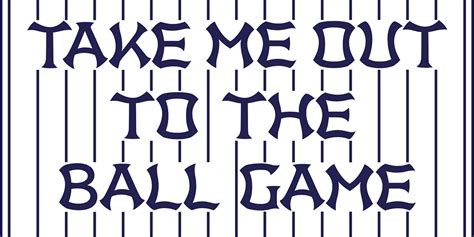
Hey guys, are you ready to build the ultimate baseball dynasty? Well, before you even start drafting players and setting lineups, you gotta get the look right! I’m talking about the fonts, the very essence of your team’s visual identity. Choosing the perfect font can transform your team’s brand, making it look professional, cool, and intimidating all at once. So, how do you find the right fonts? Where do you even begin? Don’t worry, I’ve got you covered. Let’s dive into the world of font downloads and how to get those perfect fonts for your baseball dynasty project. We’re talking logos, jerseys, social media graphics, and everything in between. It’s time to elevate your game and create a visual experience that screams success.
Why Fonts Matter in Your Baseball Dynasty
Alright, let’s get real for a second. Why are fonts so incredibly important for your baseball dynasty? It’s simple, really. Fonts are the unsung heroes of visual communication. They’re the silent messengers that convey your team’s personality, values, and ambitions. Think about it: a sleek, modern font can project professionalism and innovation, while a bold, vintage font might evoke a sense of tradition and history. Imagine trying to build a baseball dynasty with Comic Sans… shudders . The font you choose is a direct reflection of your team. It impacts how fans perceive your team and even how potential players view your organization. A well-chosen font can instill a sense of pride and identity, both internally and externally. When your team looks good, it feels good, and that can translate to a winning attitude on and off the field. Plus, in today’s digital world, a strong visual brand is essential for attracting attention, building a following, and ultimately, achieving your goals. It’s not just about winning games; it’s about crafting a compelling narrative , one that captures the imagination of fans and the respect of rivals. So, let’s make sure we get this right, shall we?
Consider this: when you see a team’s logo or a jersey, what is one of the first things you notice? The font! A well-designed font grabs your attention, reinforces brand recognition, and sets the tone. Think about the iconic fonts of the New York Yankees or the Los Angeles Dodgers. They’re instantly recognizable and intrinsically linked to the teams’ legacies. If you’re building a dynasty, you want that kind of recognition. You want your font to become synonymous with winning. It’s about creating a legacy . It is about creating a visual story that reinforces your team’s identity. The right font is a building block in your dynasty’s foundation. Think about the impact of the font on your team’s merchandise, the scoreboards, the advertising materials, etc. Everything needs to be consistent to build that brand recognition. Remember, you want to get the fans excited and create that winning dynasty feeling. So, let’s find the fonts that will make it happen!
Finding the Right Font Style for Your Team
Okay, so you know where to download fonts, but how do you actually choose the right style ? It’s a critical decision. You want a font that aligns with your team’s personality, and the options are nearly endless. Consider these popular styles.
• Serif Fonts: These are classic fonts with little decorative strokes at the end of each letter. They convey a sense of tradition, sophistication, and stability. Perfect if you’re going for an old-school or established feel. Think about the fonts used by the Boston Red Sox or the St. Louis Cardinals – a nod to the history of the sport.
• Sans-Serif Fonts: These are clean and modern fonts without the decorative strokes. They’re great for a contemporary, minimalist look. Use these to communicate innovation and a forward-thinking approach. The sleekness can reflect speed, agility, and a modern approach to the game.
• Script Fonts: These fonts mimic handwriting and add a touch of elegance or playfulness. They can work well for logos or specific design elements, but can be hard to read for body text. Ideal if you want a touch of personality or to evoke a vintage aesthetic.
• Display Fonts: Designed for headlines and short bursts of text, display fonts come in all shapes and sizes. They’re perfect for creating a bold, eye-catching logo or emphasizing a particular team motto. These are used when you want to make an immediate impact. These are often creative and bold, helping you stand out from the competition. Think about a font that matches your team’s nickname or mascot.
When choosing, consider these elements: Readability is key. The font needs to be legible, especially at different sizes and on different mediums (jerseys, digital displays, etc.). Personality matters. Does the font reflect your team’s character? Is it bold, classic, modern, or playful? Consistency is crucial. Use the same font family across all your branding for a cohesive look. Versatility . Select fonts that work well in multiple contexts, from your website to your merchandise. Accessibility matters. Ensure your font choice is accessible to all viewers, including those with visual impairments.
Tips for Using Fonts in Your Baseball Dynasty
Now, let’s talk about how to make the most of your fonts . It’s not just about downloading them; you also have to use them effectively.
• Create a Brand Style Guide: Document your fonts, colors, and other design elements to ensure consistency. This helps anyone creating materials for your team understand the brand’s visual identity. This prevents any confusion and makes it simple to ensure that any branding is consistent.
• Pair Fonts Wisely: Don’t overload your design with too many fonts. Stick to two or three at most. Pair a headline font with a body font that complements it. It ensures that the design doesn’t become too busy.
• Consider Font Licensing: Always check the font licenses to make sure you can use the fonts for commercial purposes (e.g., merchandise, advertising). Some fonts are free for personal use but require a license for commercial applications.
• Test Your Fonts: Try your fonts out in different contexts (logos, jerseys, website) to ensure they look good everywhere. Try to create mockups of what the jerseys or website will look like to make sure it will translate and look good in reality.
• Focus on Hierarchy : Use different font sizes, weights, and styles to create visual interest and guide the viewer’s eye. Hierarchy is a core design principle that allows you to emphasize the most important information first and keep your viewers engaged.
• Stay Updated: Fonts can go in and out of style. While classic fonts always work, try to keep an eye on current design trends and update your font choices accordingly. This keeps your brand looking fresh and modern.
By following these tips, you’ll be well on your way to creating a visually stunning baseball dynasty that stands out from the crowd.
Customizing Your Fonts for a Unique Look
Want to take things to the next level? Customizing your fonts can add a unique touch to your baseball dynasty’s branding. Many font design tools allow you to modify existing fonts or create your own from scratch. While this might be a more advanced approach, the results can be remarkable. Here are some of the ways you can customize your fonts.
• Font Editing Software: Applications like FontForge or Glyphs allow you to modify the shapes, spacing, and other aspects of existing fonts. You can adjust individual letterforms, add custom ligatures, and create unique variations to match your team’s personality. These tools are often complex, but they provide a high level of customization. Learning to use them can allow you to create fonts that are truly original.
• Commissioning a Custom Font: If you have the budget, consider hiring a professional font designer to create a custom font for your team. This is a great way to ensure that your font is completely unique and perfectly aligned with your brand. A custom font adds that wow factor to your dynasty.
• Combining Fonts: Another approach is to combine elements from different fonts to create something new. This might involve using a serif font for the main text and a sans-serif font for headlines or adding a script font for your team’s signature. Experimentation is key; just make sure to maintain readability and consistency.
• Color and Effects: Once you’ve selected your font, think about how it looks with color and effects. Try adding a drop shadow or outline to your font to make it stand out against different backgrounds. Color can also be a significant part of the customization process. Choose colors that represent your team. This will allow for the perfect synergy of font and color!
Conclusion: Build Your Dynasty With the Perfect Font
Guys, choosing the right fonts is a critical step in building a successful baseball dynasty. It’s about more than just picking a pretty font; it’s about crafting a visual identity that resonates with your fans, establishes your brand, and sets you apart from the competition. So, go out there, explore the world of fonts, and find the perfect ones to help you build your baseball empire. Remember to download your fonts from reputable sources, consider the personality of your team, and always pay attention to the licensing terms. And most importantly, have fun with it! Your baseball dynasty’s visual success is right at your fingertips. Now, go forth and build your champion team, one perfect font at a time! Don’t forget that it is also about having fun in the process!